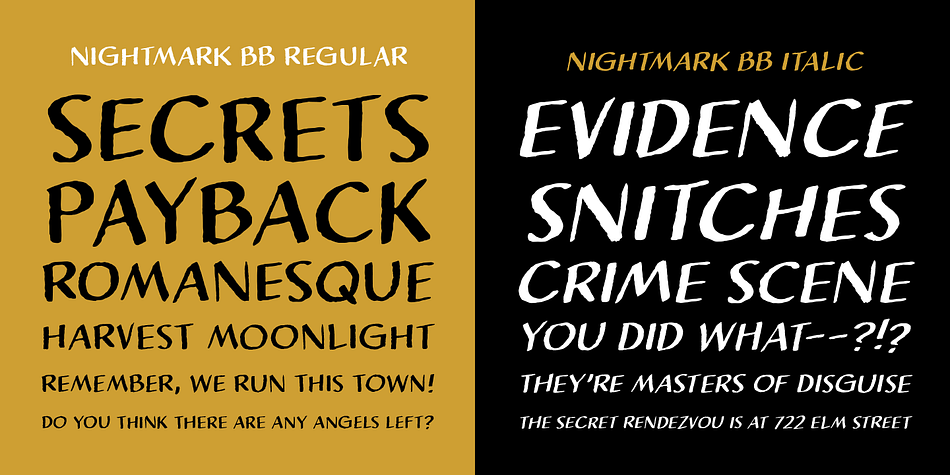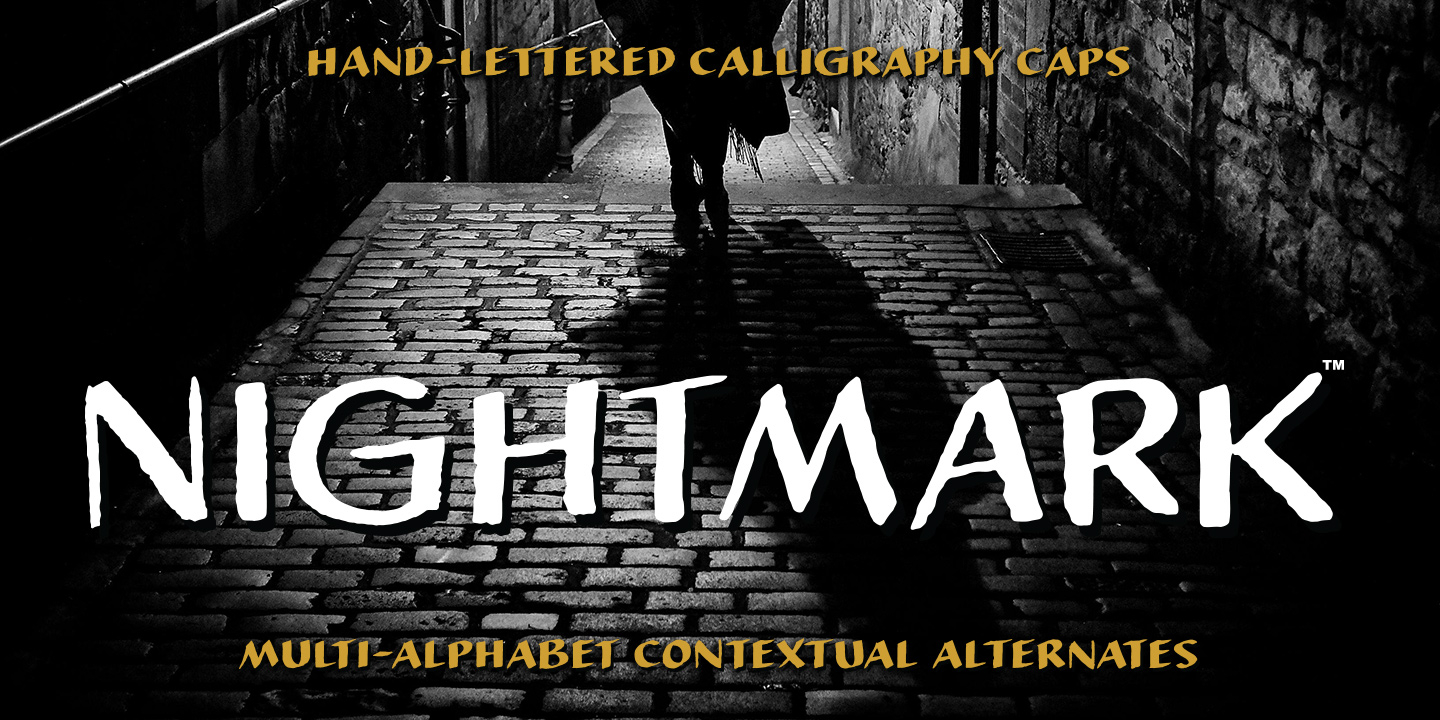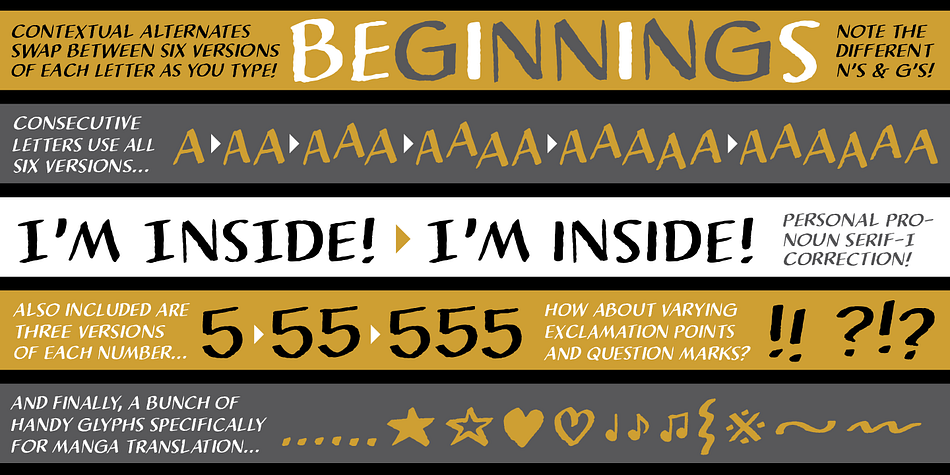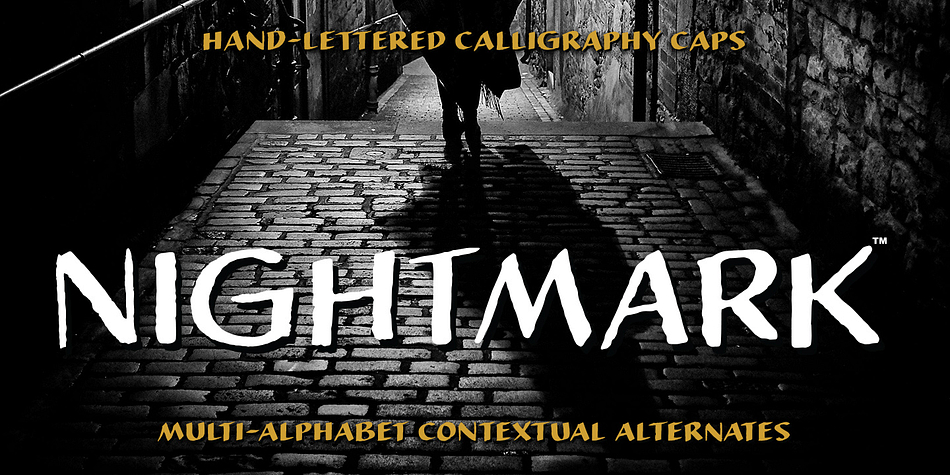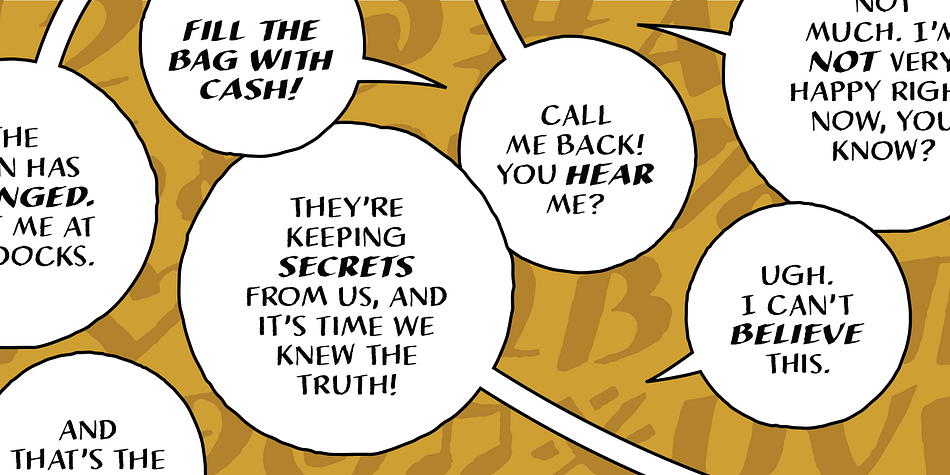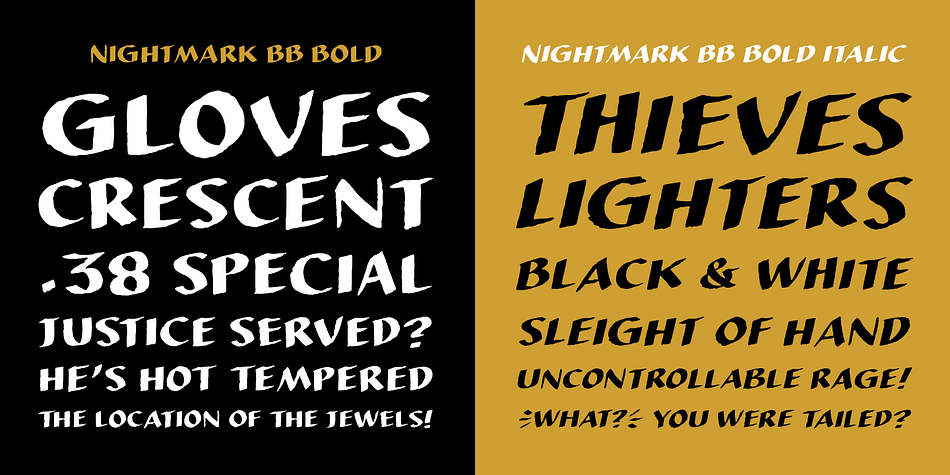
Nightmark BB
Designed by Nate Piekos, Nightmark BB is a comic font family. This typeface has four styles and was published by Blambot.
Nightmark BB is a roman-inspired, all-caps calligraphy typeface, hand lettered by Nate Piekos. Intended for comic book dialogue lettering, it features contextual alternates for six versions of each letter, three versions of each number, exclamation point, and question mark, serif-I correction, manga-specific characters, bouncy baselines for three or more consecutive letters, and a ton of European characters!